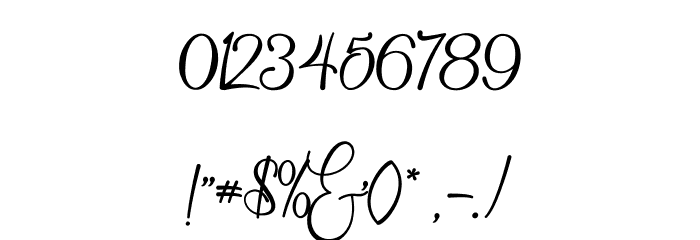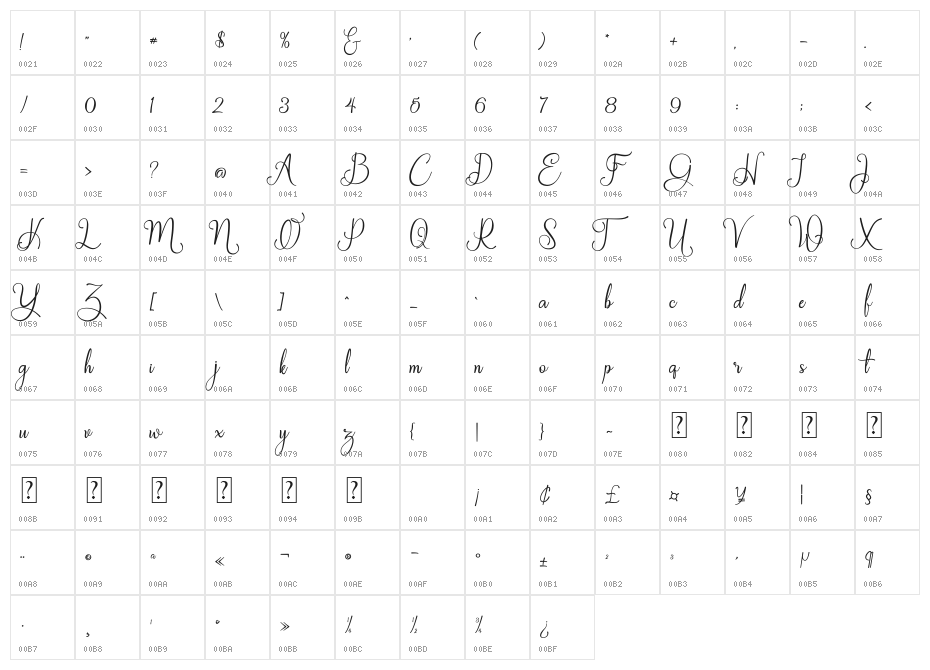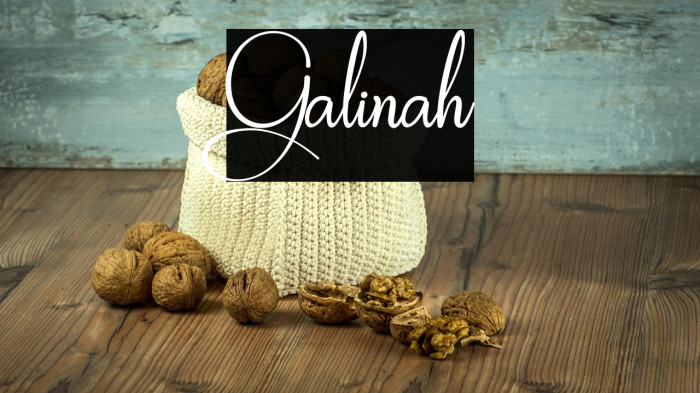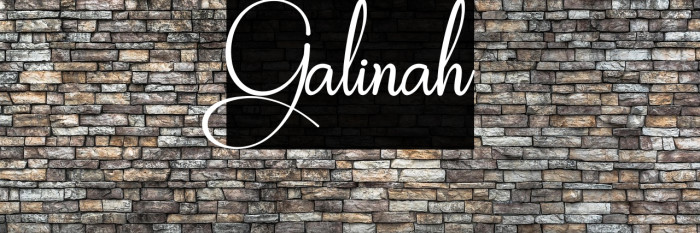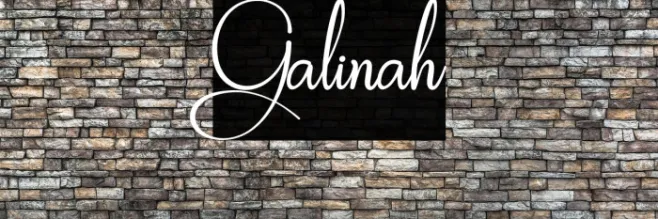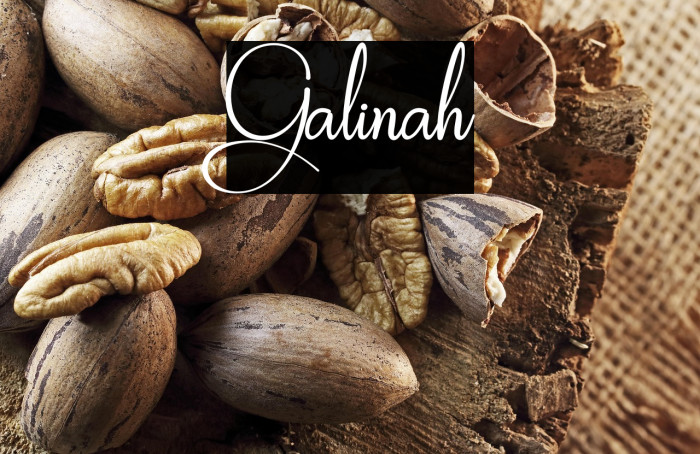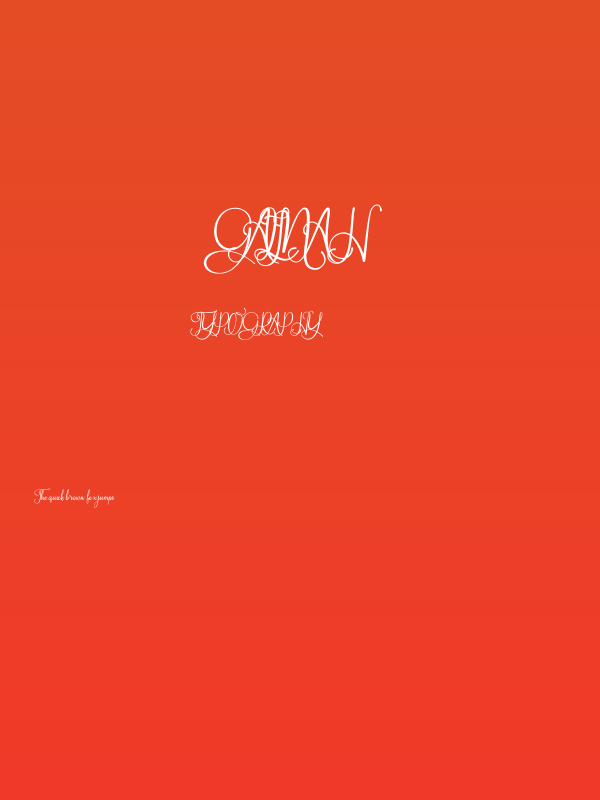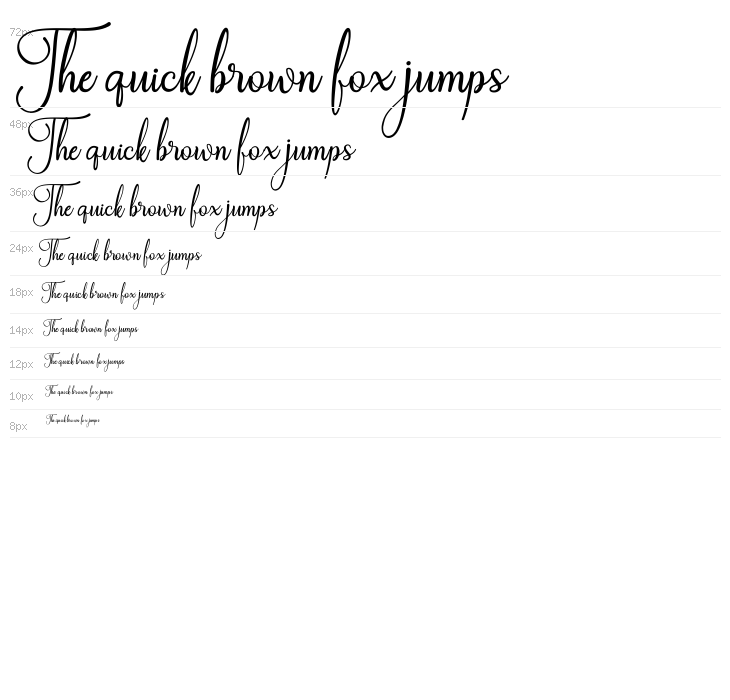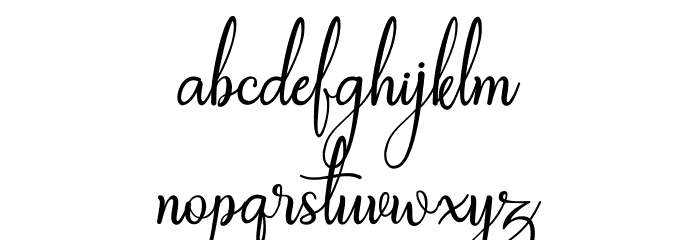
Galinah Font
Galinah Description
This font features an elegant and flowing script style, characterized by its intricate and decorative letterforms. The uppercase letters are particularly ornate, with elaborate swirls and loops that give a sense of sophistication and artistry. The lowercase letters maintain a consistent fluidity, making them highly legible despite their decorative nature. The numerals and special characters are designed to match the overall aesthetic, ensuring a cohesive look across all text elements. This font is perfect for projects that require a touch of elegance and refinement.
| Use Case | Logos, Invitations, Decorative Text |
| Proposed Projects | Ideal for wedding invitations, elegant branding, luxury product packaging, and artistic posters. |